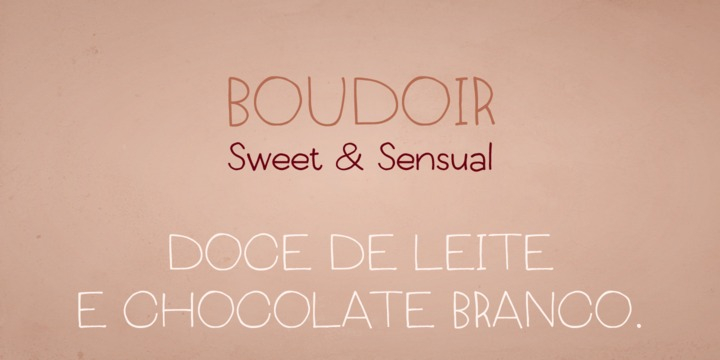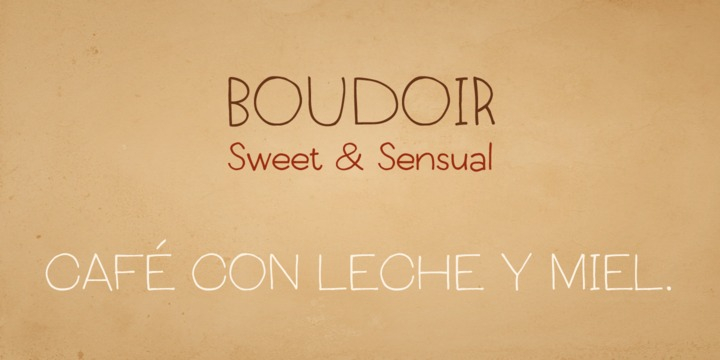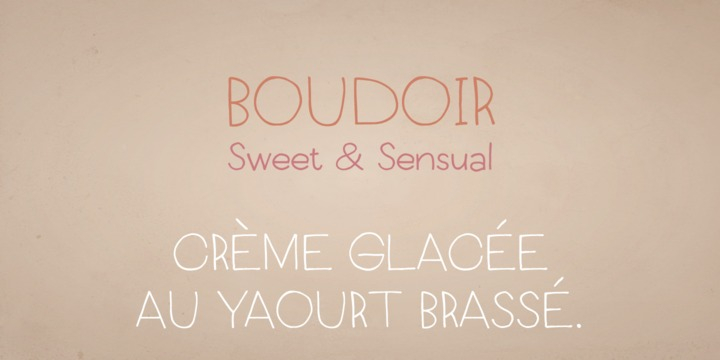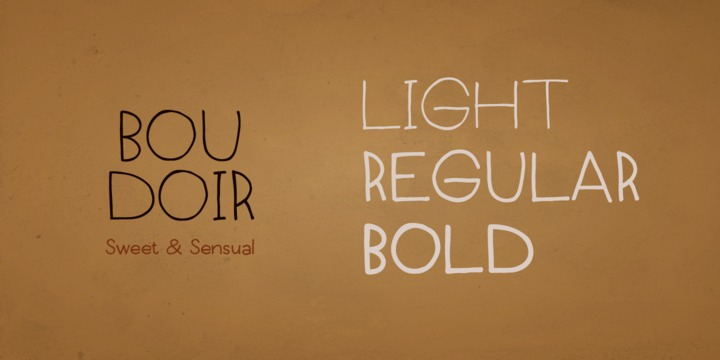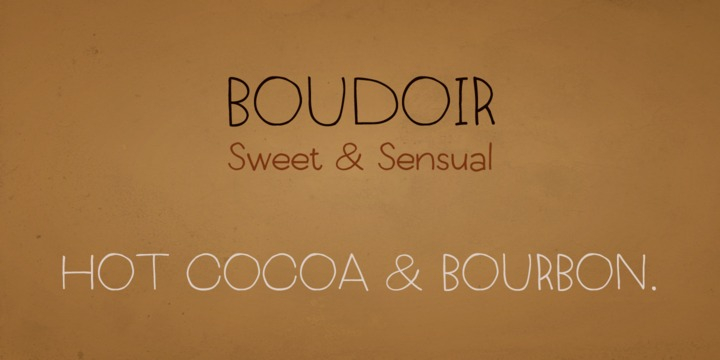
Boudoir is a hand drawn font family. This typeface has three styles and was published by Juraj Chrastina.
Come into the boudoir. This simple hand-drawn sans tries to invoke the same feelings as its name - and not to be overluscious. Boudoir is sweet and sensual like women, but it’s at the same time uncluttered and masculinely straightforward.
The font borrows some playful capital shapes from the all caps Baronessa and draws inspiration for others from old classics.
Thanks to the bolder weights, it can also be used in smaller sizes, you can combine different weights for different sizes to obtain a more balanced look, or you can just give emphasis using different weights.